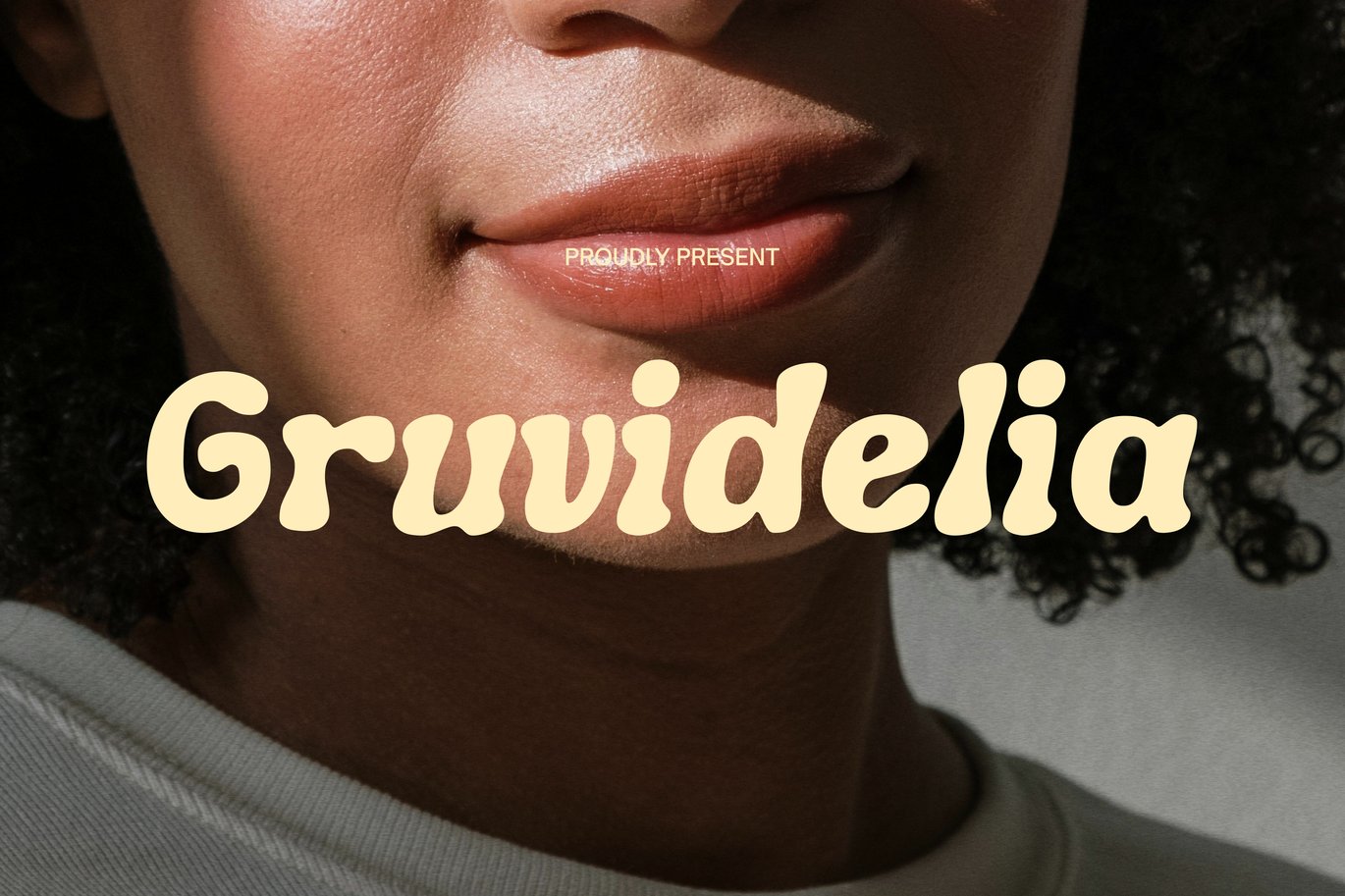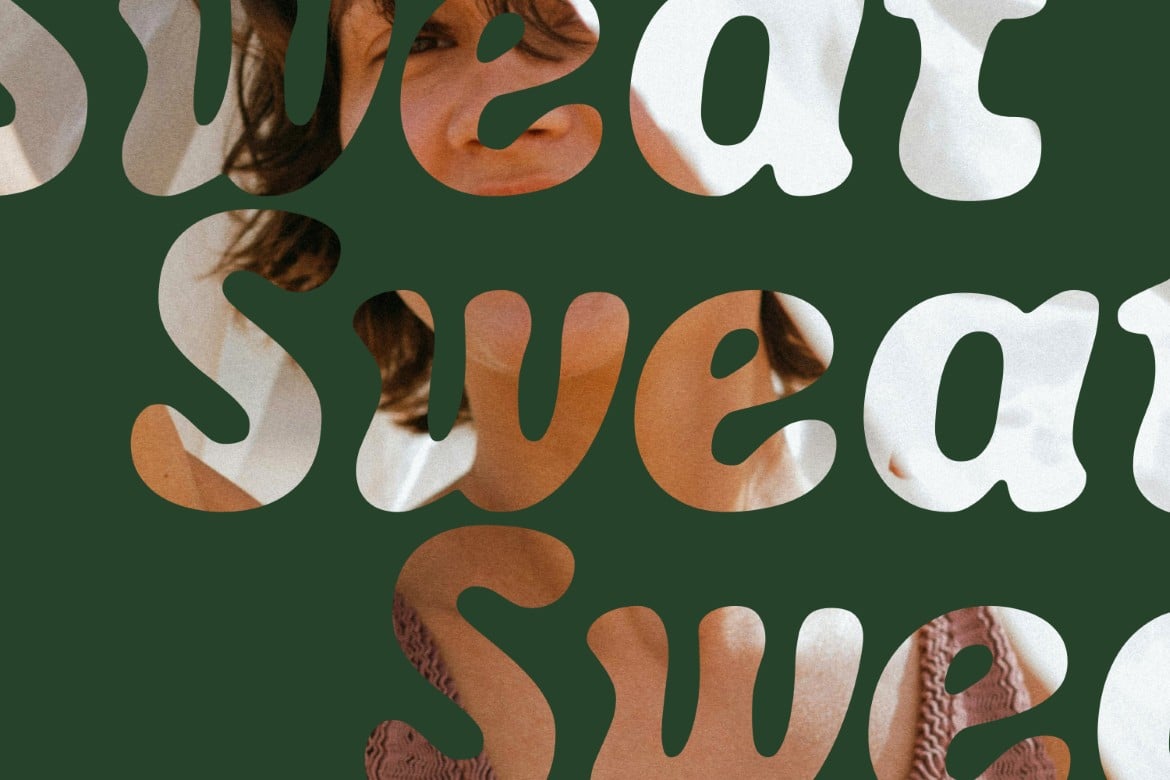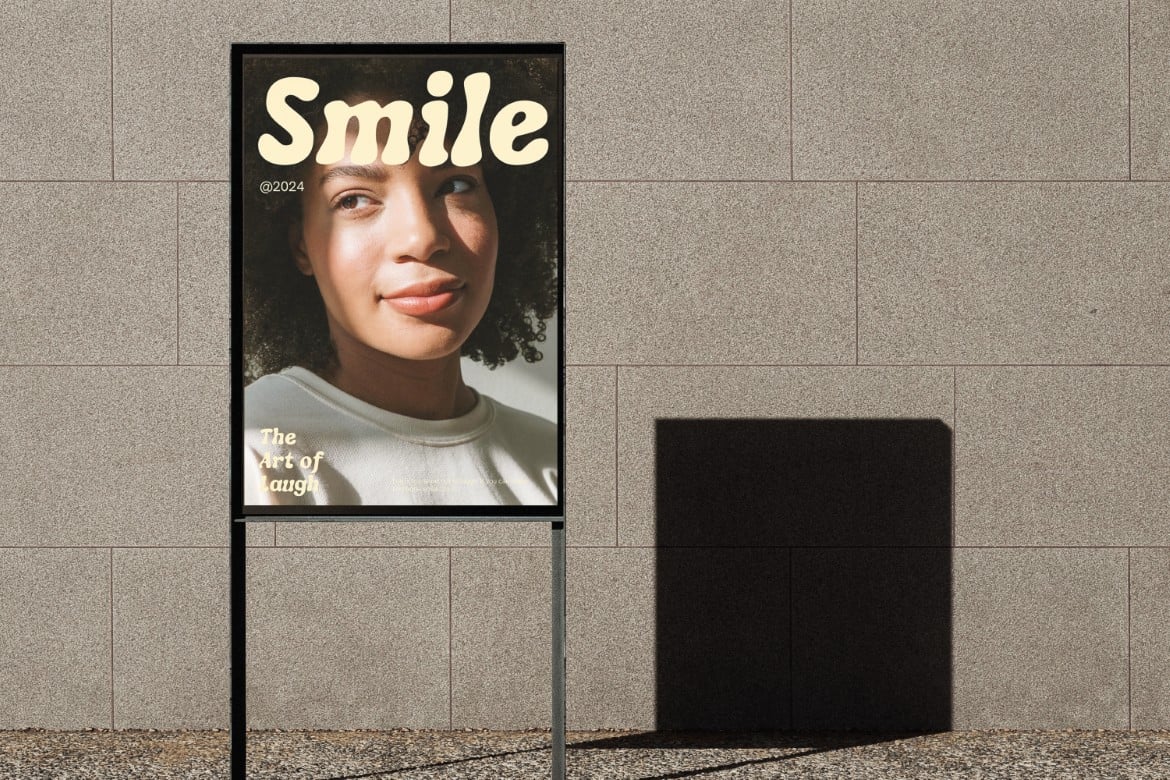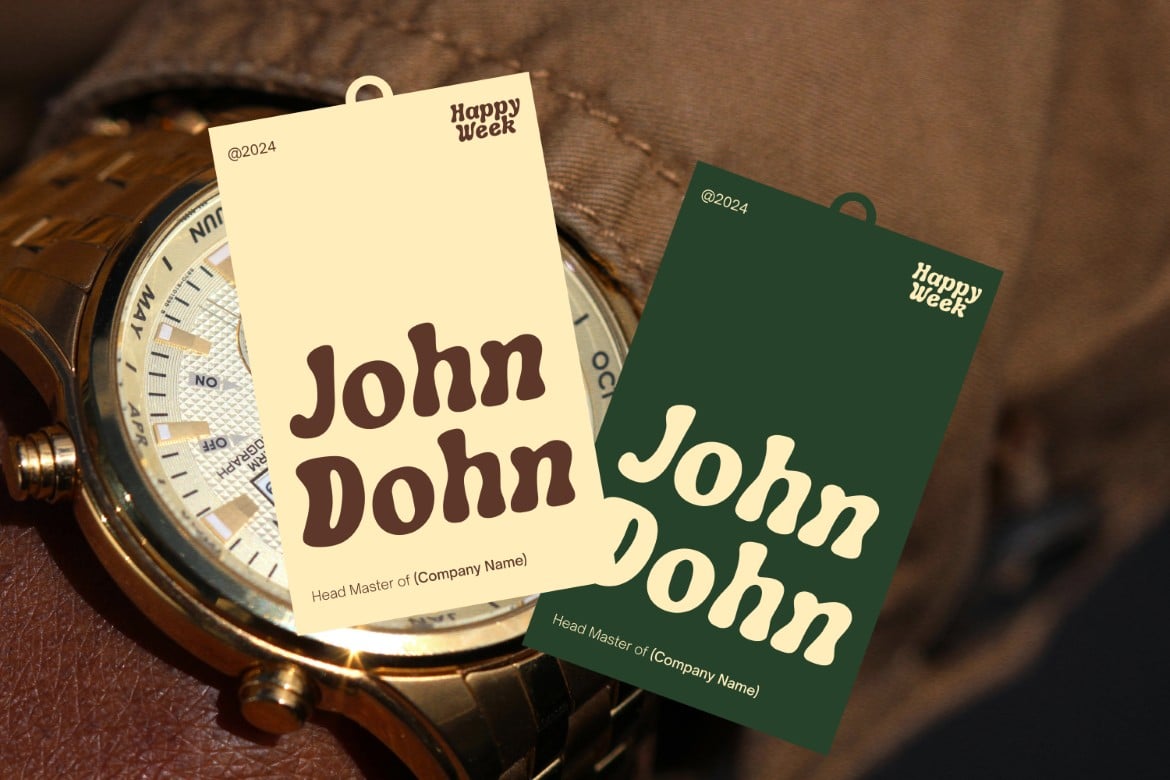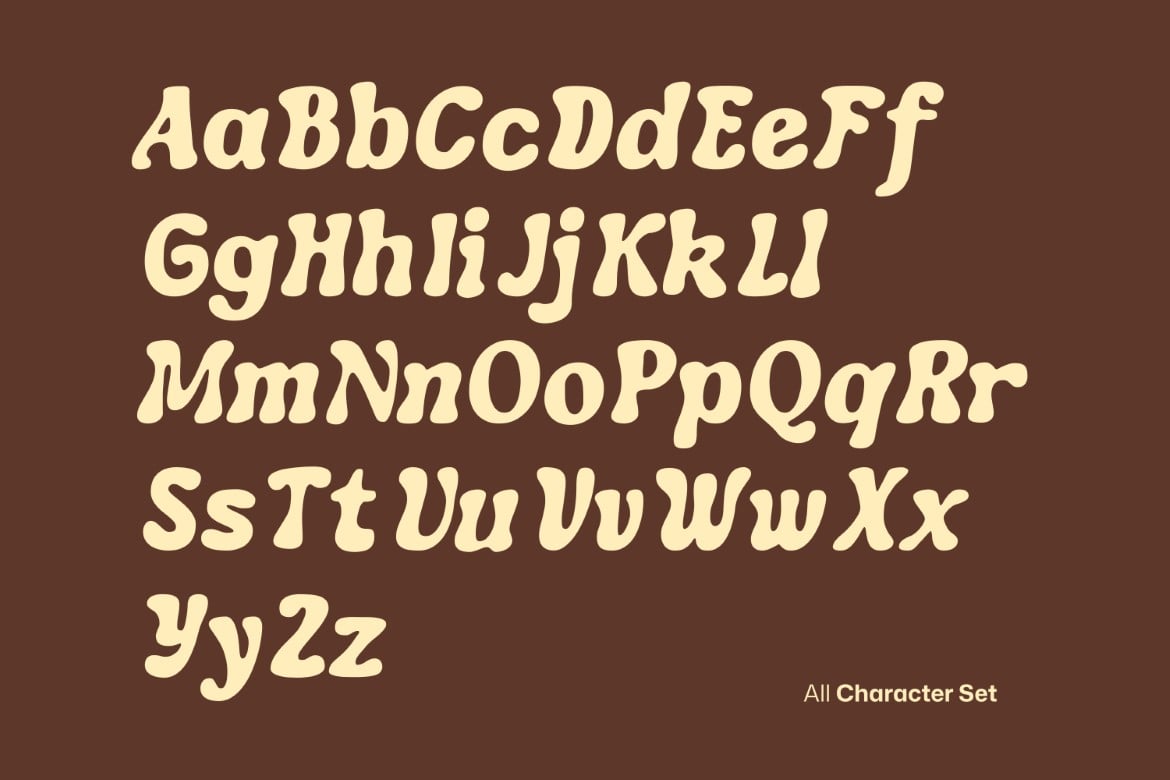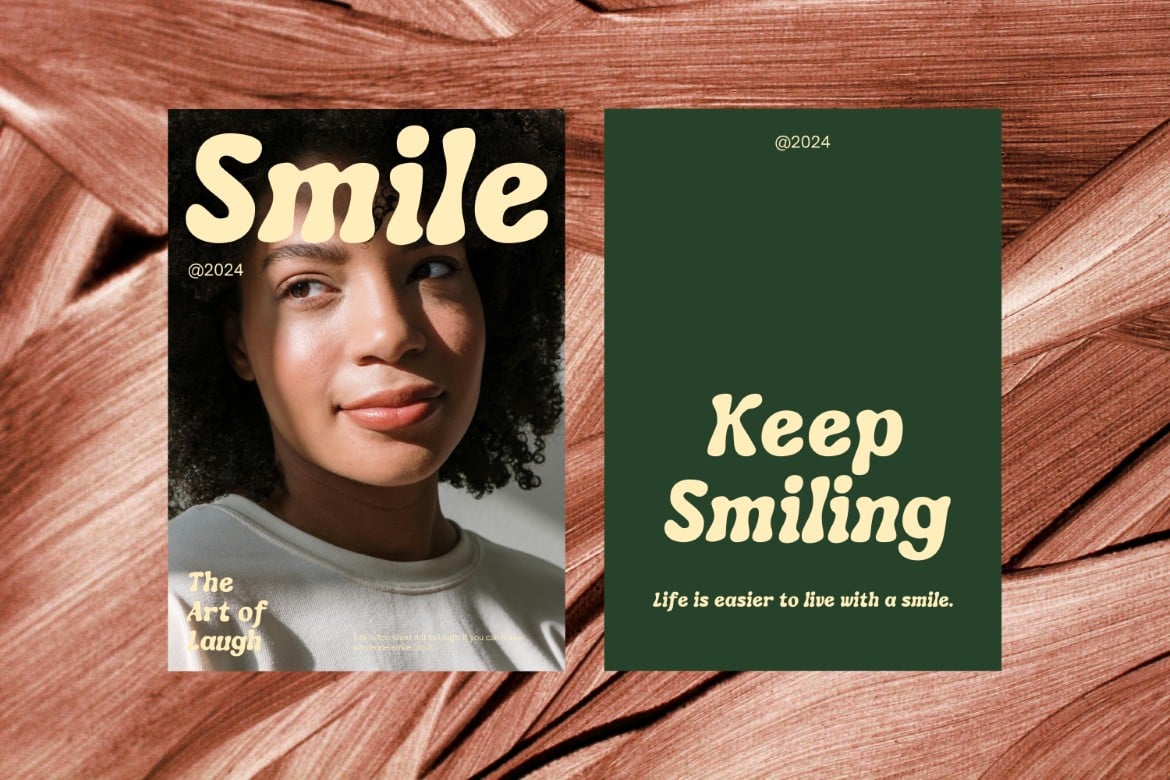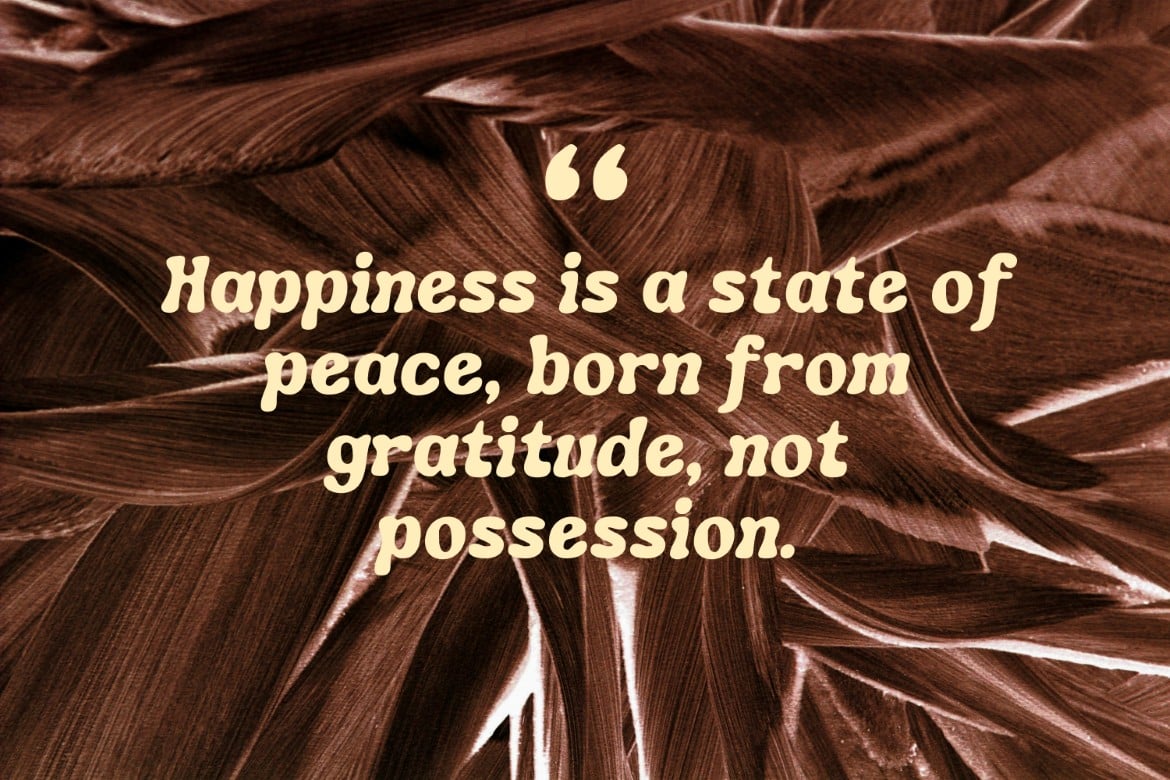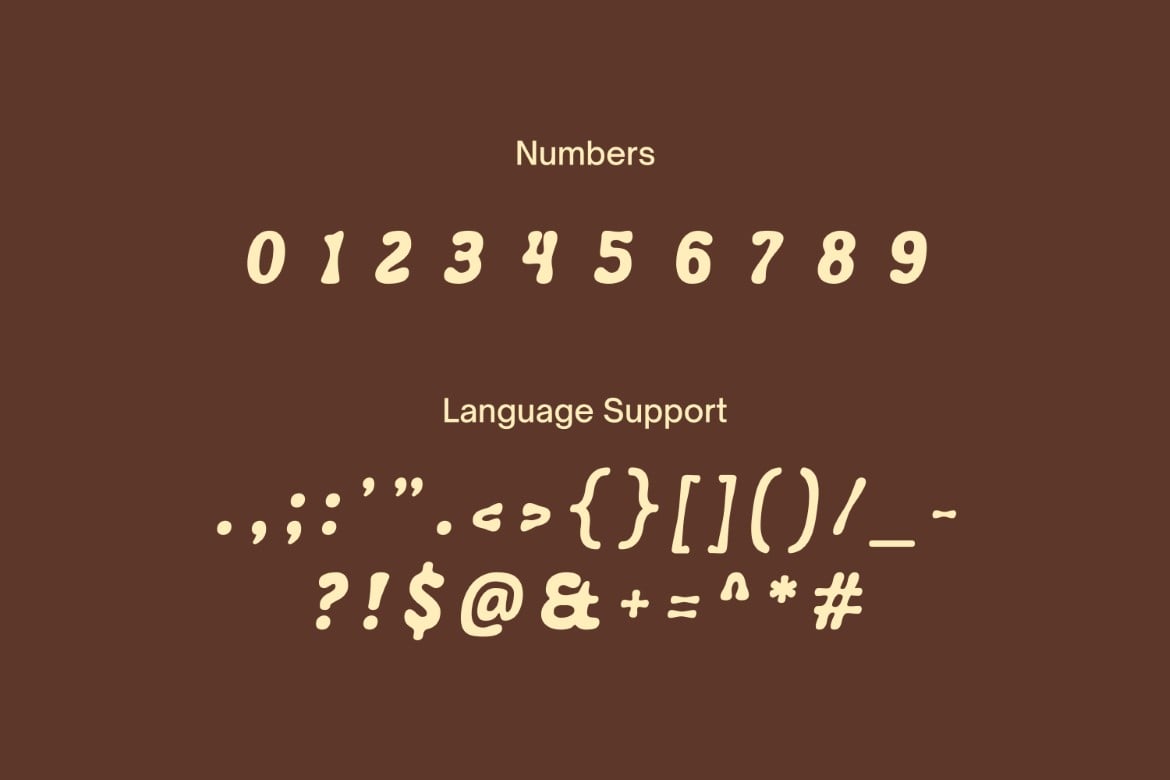
Gruvidelia – Psychedelic Display Font
Unleash your inner hippie with Gruvidelia, the psychedelic display font that transforms your designs into vibrant works of art. With its bold, swirling characters and eye-catching details, Gruvidelia captures the essence of the ’60s and ’70s counterculture. Perfect for posters, album covers, and artistic projects, this font adds a trippy, groovy vibe to any creation. Embrace the explosion of color and creativity that Gruvidelia brings, making your designs stand out in a kaleidoscope of expressive style.